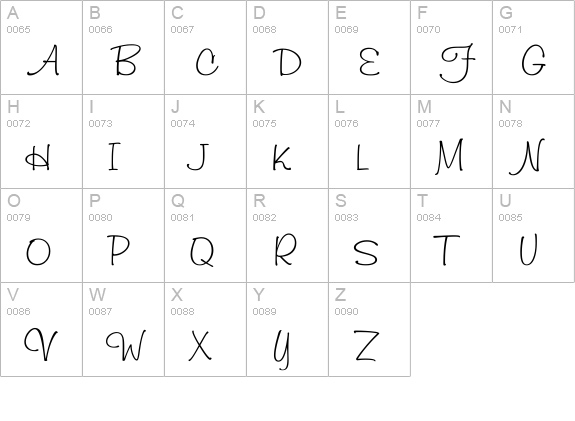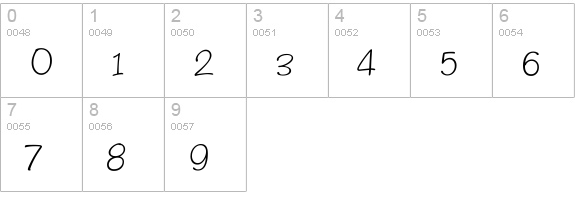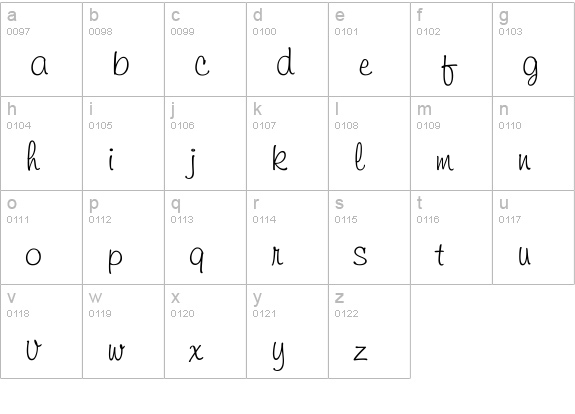
Freehand591 Font Details
The Freehand591 font is a beautifully crafted typeface that exudes creativity and uniqueness. Its hand-drawn style gives off a sense of free-spiritedness and artistic flair, making it perfect for projects that require a personal touch. The flowing lines and organic shapes of this font add a touch of whimsy and charm to any design. Best of all, the Freehand591 font is freely available to download at FontsMarket.com. Whether you're working on a poster, logo, or any other creative project, this font will surely make your work stand out. Embrace the freedom of expression with the Freehand591 font and let your creativity soar!